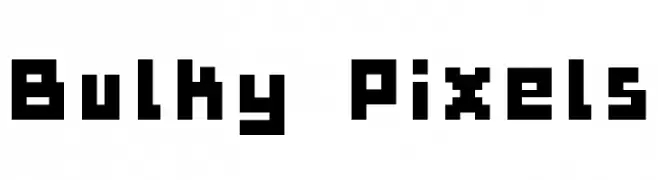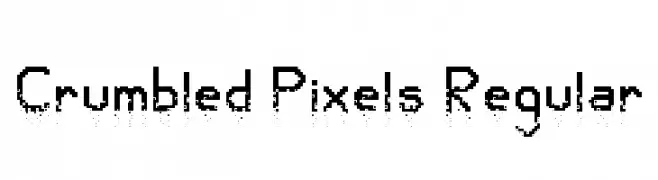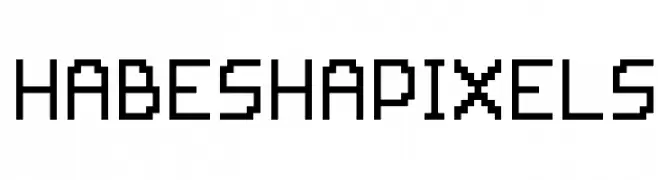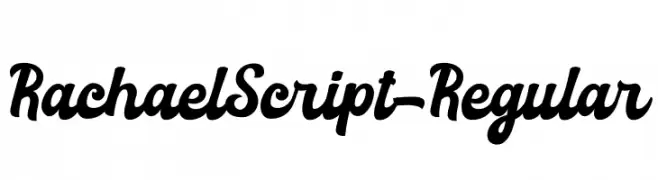
A clean, geometric sans-serif font with excellent readability.
A pixelated, textured font with a crumbled, retro digital aesthetic.
A bold, pixelated font with a retro digital aesthetic.
A bold, three-dimensional font with a modern, geometric style.
A bold, rounded font with a playful and approachable design.
A flowing, interconnected script font with elegant loops and artistic flair.
A bold, pixelated font with a retro digital aesthetic.
A pixelated, blocky font with a retro digital aesthetic.
A bold, flowing script font with dynamic strokes and smooth curves.